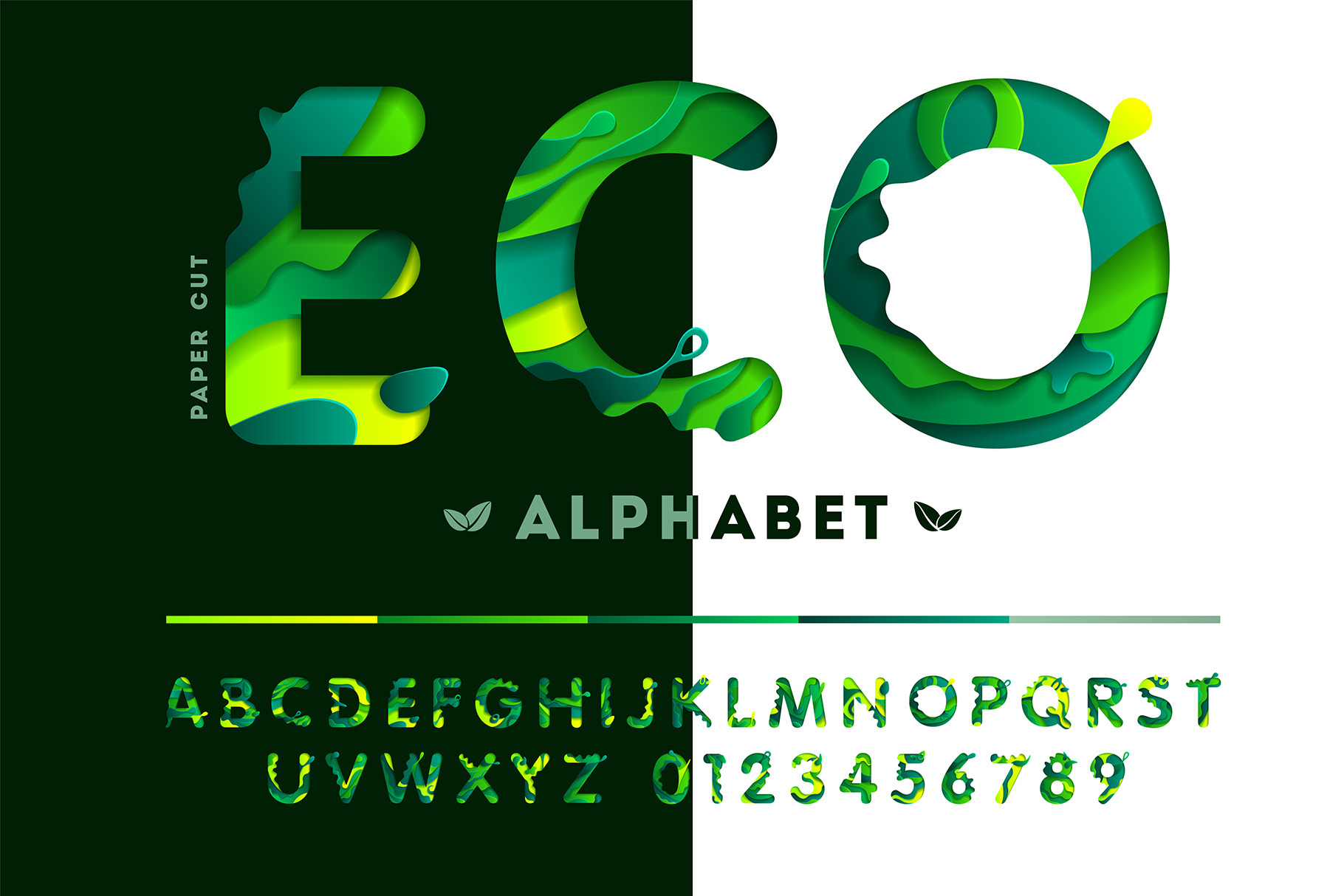
Eco Paper Cut Alphabet Font
Eco Paper Cut Alphabet Font. Stylish Decorative Letters and Numbers from Colorful Carved Shapes for Organic, Green and Creative Design - EPS (Not a Font!)
- Uppercase letters A - Z
- Numbers 0 - 9
- Clean, modern, and unique alphabet design